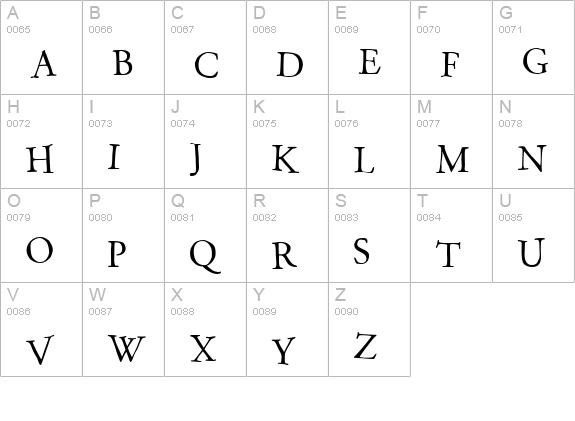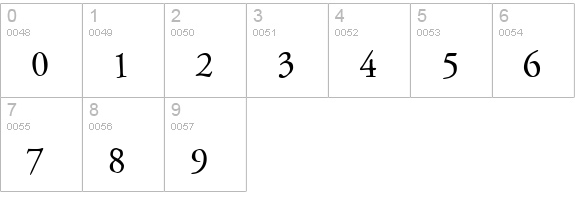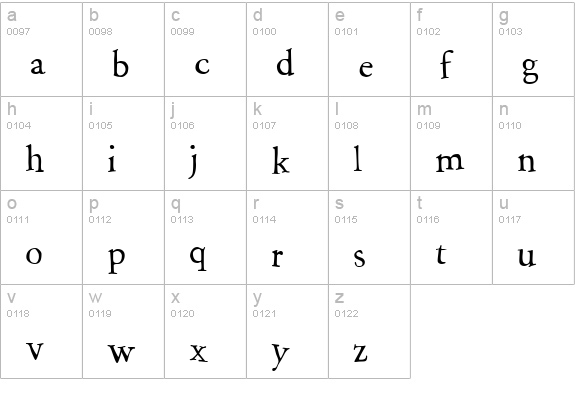
P22 Garamouche Font Details
P22 Garamouche font is a magnificent typeface that effortlessly blends elegance with a touch of whimsy. Its graceful curves and playful swirls make it perfect for a wide range of creative projects, from invitations to logos and everything in between. Designed with meticulous attention to detail, P22 Garamouche exudes a timeless charm that captures the essence of classic typography. Each letter is expertly crafted, showcasing a harmonious balance between delicate flourishes and legibility. One of the most remarkable features of P22 Garamouche font is that it is available for free. Yes, you read that right! This beautiful typeface can be freely downloaded at FontsMarket.com, allowing designers, artists, and enthusiasts to explore the endless possibilities it offers, without any cost. The versatility of P22 Garamouche font is truly remarkable. It effortlessly adapts to various design styles, whether you're aiming for a vintage-inspired look or a more contemporary and playful aesthetic. Its wide range of ligatures, alternate characters, and swashes provide endless opportunities for customization and creativity. With its generous x-height and well-proportioned letterforms, P22 Garamouche ensures excellent readability even at smaller sizes. This makes it a perfect choice for body text in editorial designs, as well as for headlines and titles that require a touch of sophistication. Whether you're a seasoned designer or just starting out on your creative journey, P22 Garamouche font is an invaluable addition to your font library. Its versatility, elegance, and the fact that it is freely available for download at FontsMarket.com, make it a must-have for anyone seeking to elevate their design projects to new heights. Embrace the beauty and charm of P22 Garamouche font and let your creativity soar.